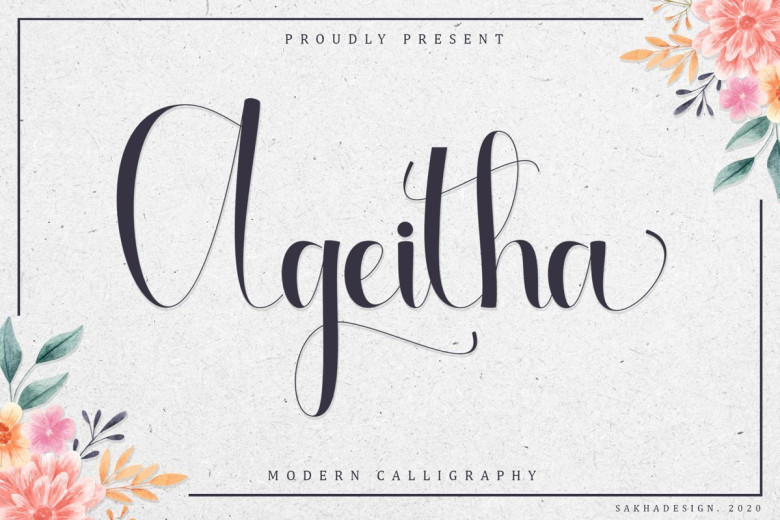
Ageitha Modern Calligraphy Font
Ageitha Script Font is a modern handwritten calligraphy font. This font can make your writing and brand elegant or beautiful. Ageitha is great for unique branding, photo overlays, watermark, greeting cards, posters, business card, invitations, wedding, photography, fashion, apparel, letter, stationery, etc.
A wide range of swashes (a-z), alternates (a-z), ligature and support multilingual are included so that you can give your logo or name a custom, hand-calligraphy look. This font is free for PERSONAL USE. Link to purchase full version and commercial license: HERE